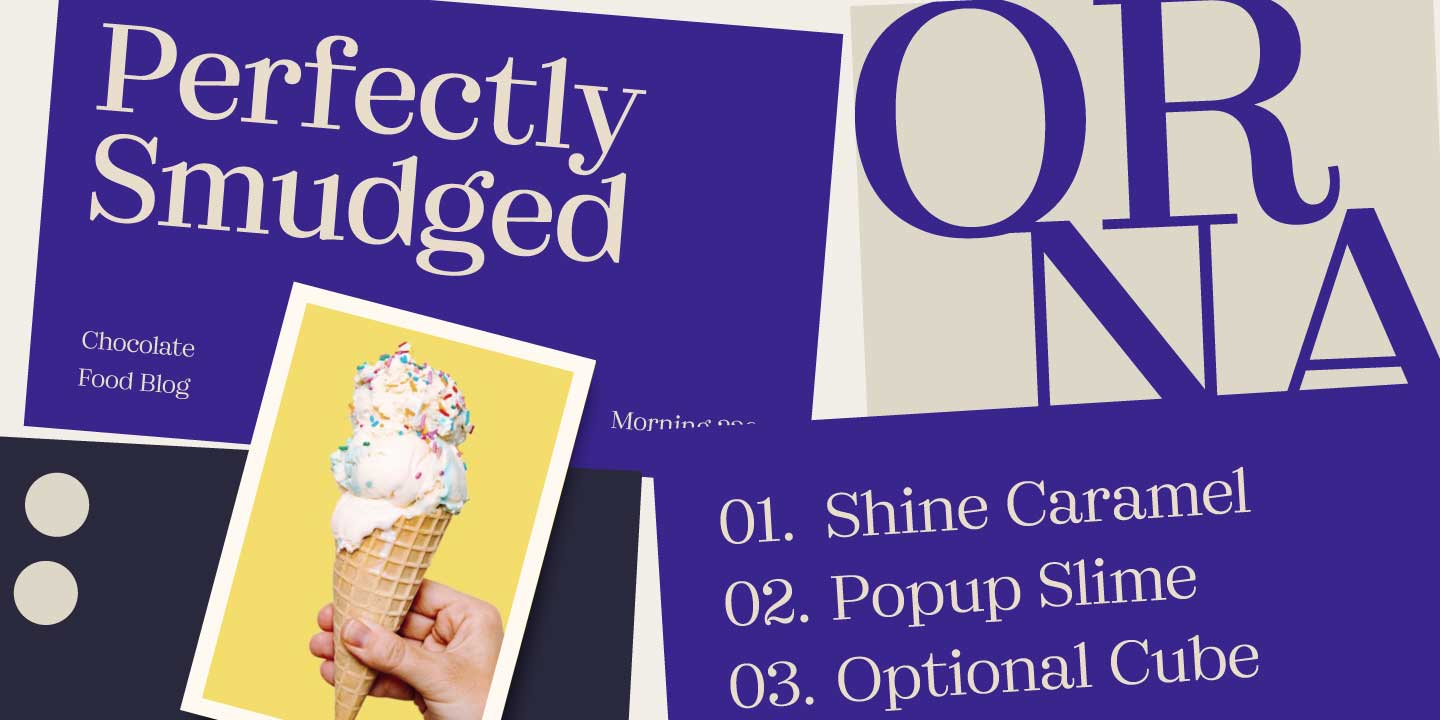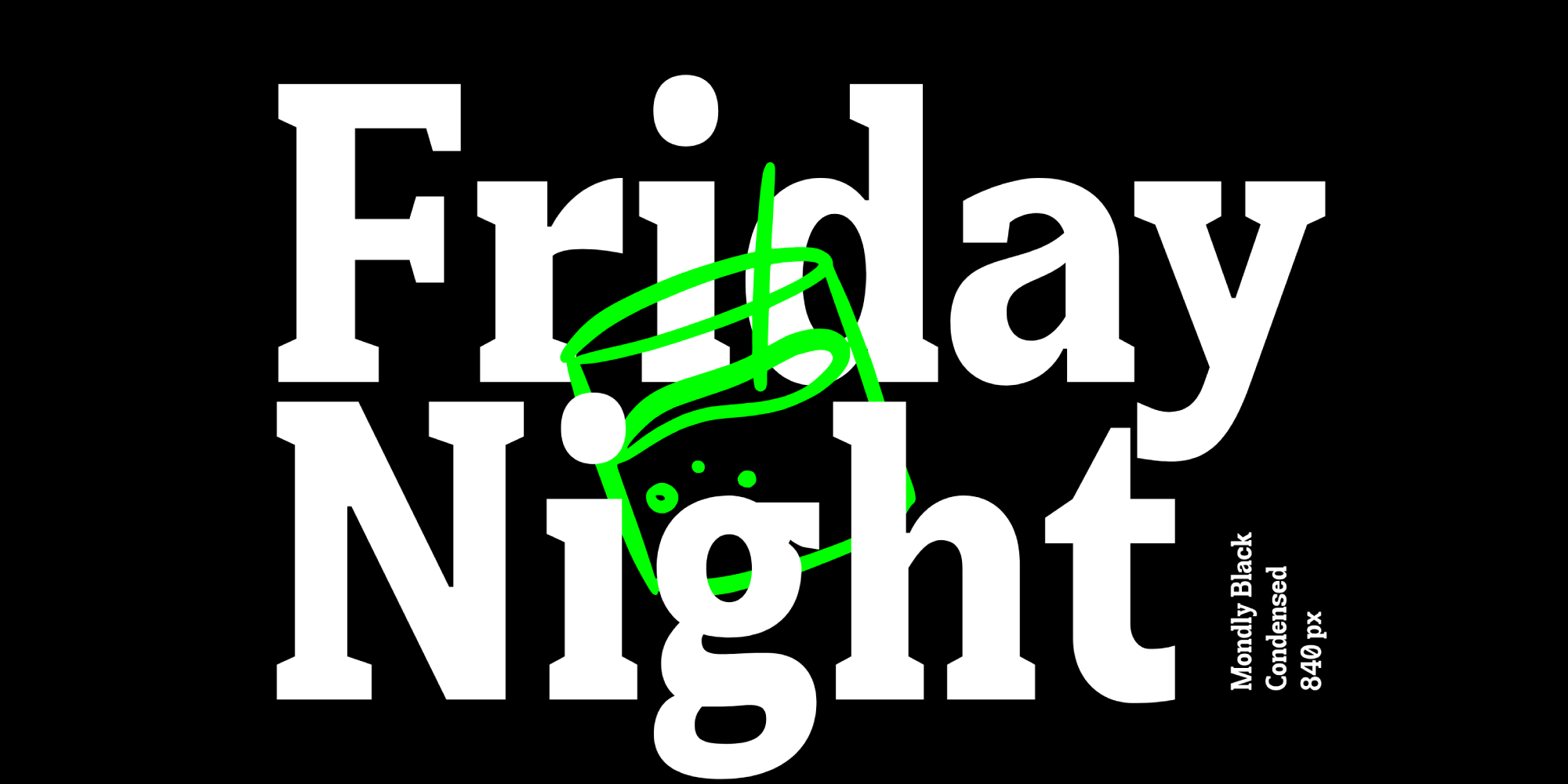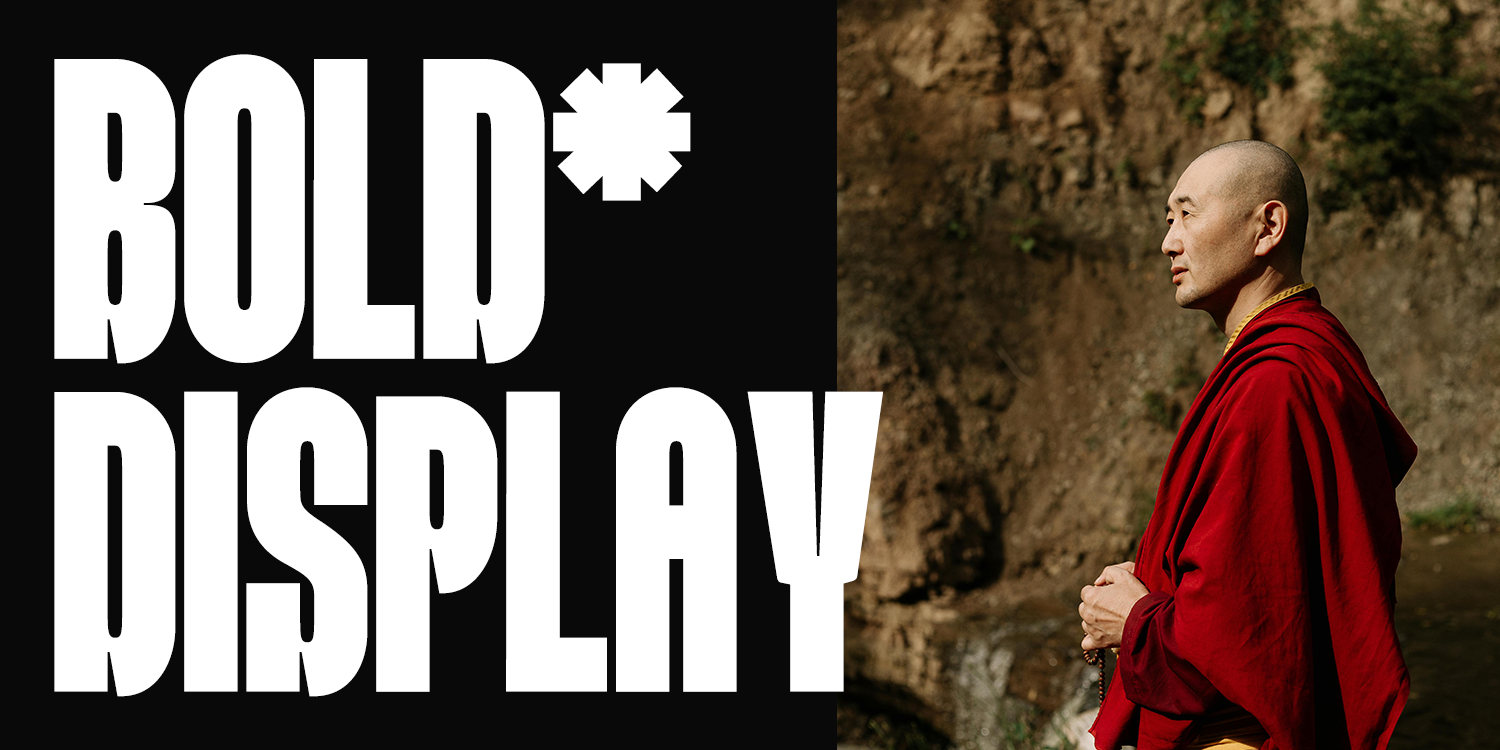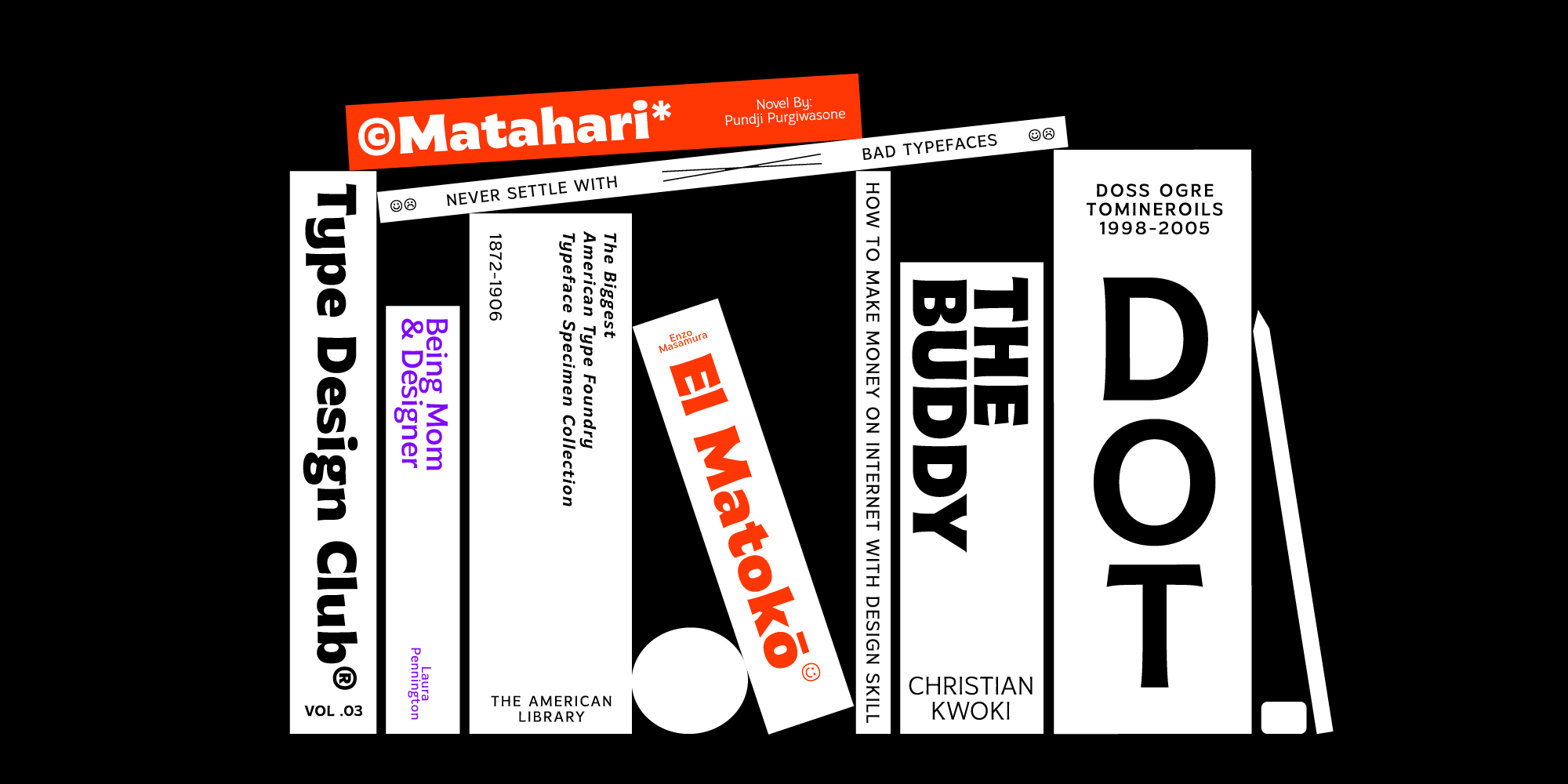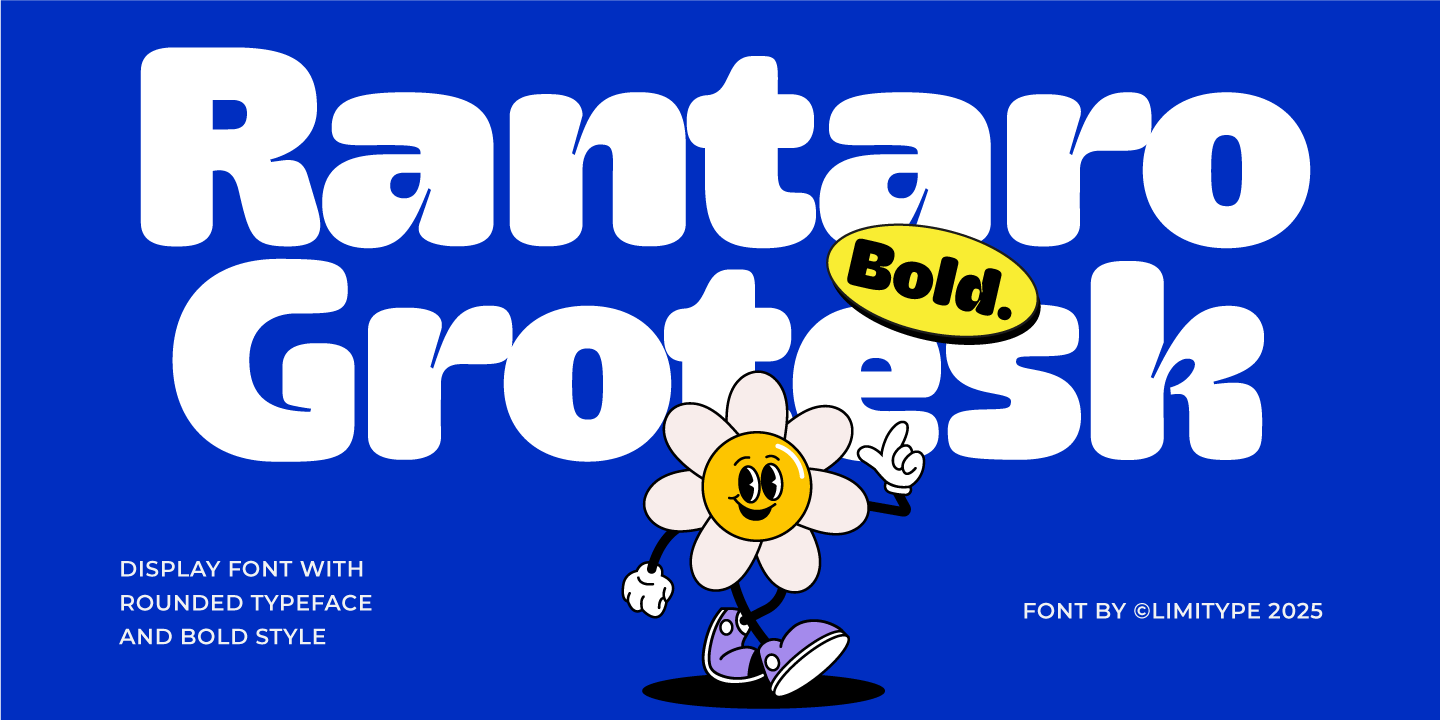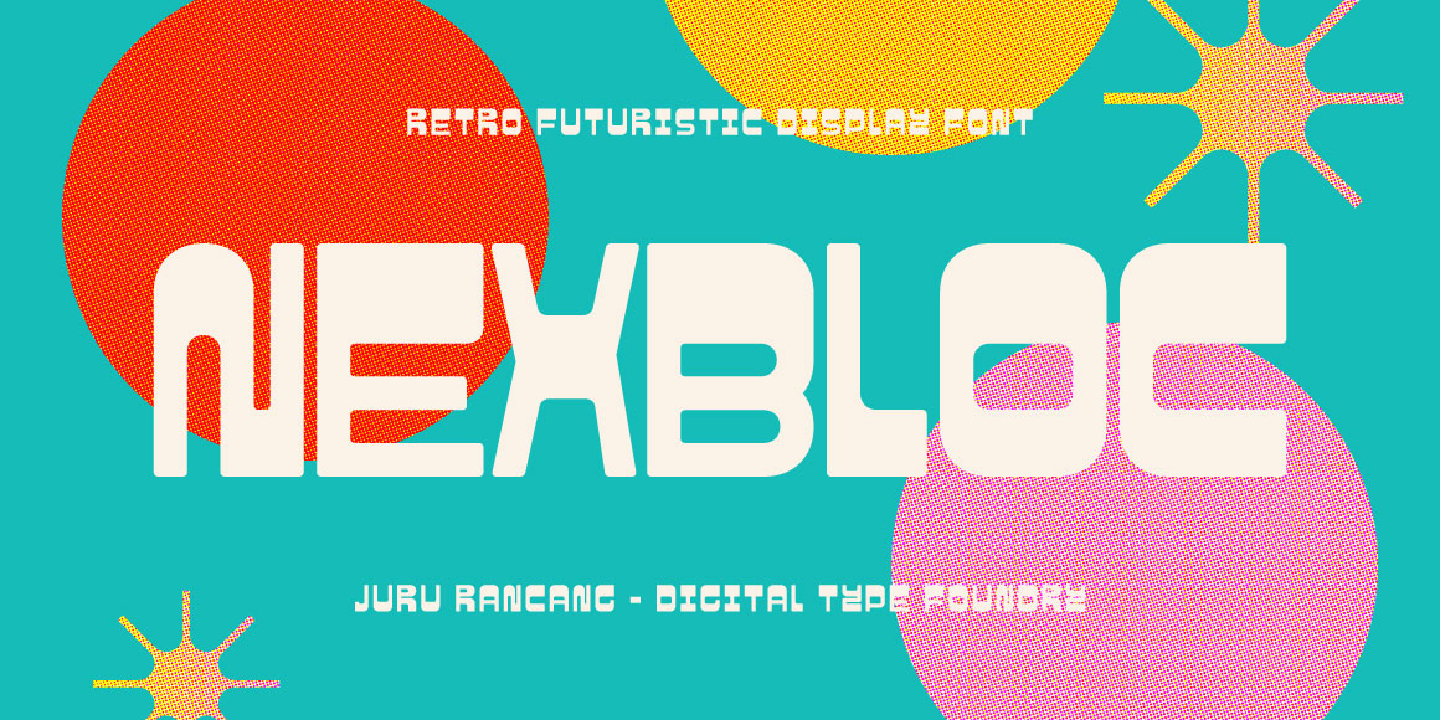
Discover Marchise, the serif family crafted to stand out with 16 stunning styles ranging from Thin to Black, complete with matching italics. Each design in the family exudes charm, making it the ideal font for display projects, short text, or bold logos. Whether you're focused on creating strong brand identities or innovative product packaging, Marchise brings the adaptability to take your creative projects further. Want to see the possibilities? Shop Marchise and bring your vision to life. 16 fonts for $129 $90.30 | |
Mondly Slab brings the perfect balance of bold strength and understated sophistication. This contemporary slab serif offers 36 versatile styles and innovative variable font support. Why does that matter? It ensures seamless adaptability across design needs—from commanding headlines to sleek, professional branding. Mondly Slab enhances any creative vision. Take your designs further—explore all the possibilities Mondly Slab has to offer. 37 fonts for $198 | |
Imagine a typeface that doesn't just communicate but makes a statement. Meet Krext, your new go-to for striking visual projects. Its sleek lines and modern design are perfect for grabbing attention and making an impact. Whether you're working on branding, digital media, or print, Krext adds a touch of sophistication and boldness to any project. 2 fonts for $49 | |
MTC Gilcho Flare is a versatile variable font ideal for both display and text applications. With 18 weights and 2 styles—Roman and Italic—it enhances your design flexibility across various media. This font provides a seamless visual communication experience, striking a balance between large display sizes and smaller text sizes. It masterfully combines fun and serious vibes, offering a rich canvas for graphic exploration. Its range, from thin to black weights, makes it adaptable for diverse design contexts, infused with funky and chunky aesthetics that elevate any project. 18 fonts for $64 | |
Looking to give your designs a stylish and contemporary feel? Rantaro is the display font that will captivate your audience with its smooth, rounded style and professional look. As you work on your next project, imagine the charm of its subtle inktrap details giving personality and distinction to your visuals. It's the perfect match for those impactful titles and headlines that grab attention while staying clear and polished. Ready to take your design projects to the next level? Don't wait—add Rantaro to your creative toolkit today. 1 font for $25 | |
Step up your design game! Nexbloc is here to bring excitement to your creative projects with bold retro-inspired energy. With its iconic 70s and 80s style, paired with sharp geometric shapes and striking cutouts, Nexbloc ensures your designs stand out. Ideal for music events, posters, flyers, or branding, this font transforms the ordinary into extraordinary. Picture your projects infused with personality and nostalgia, paired perfectly with a contemporary twist. Want to make that vision a reality? Take action today—add Nexbloc to your design arsenal! 1 font for $15 | |